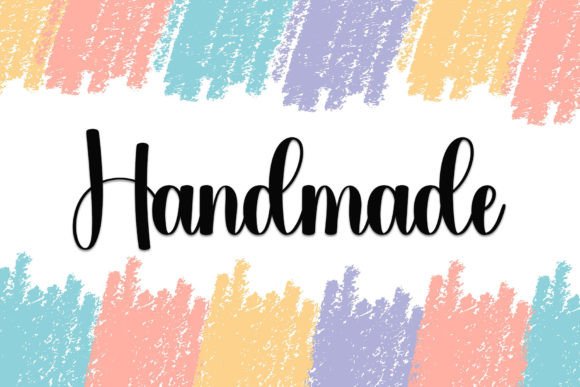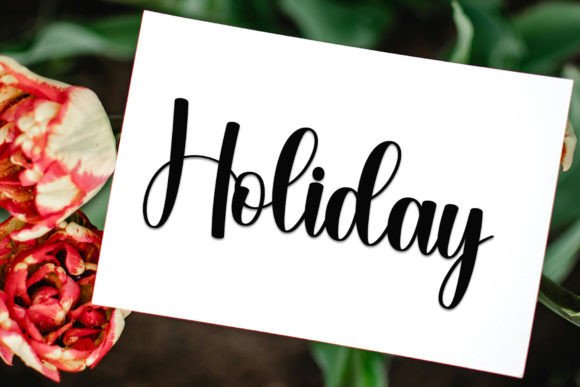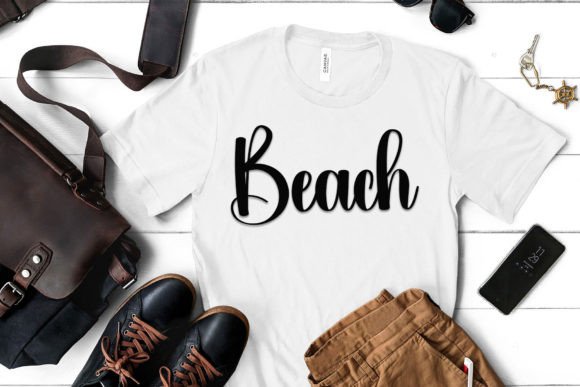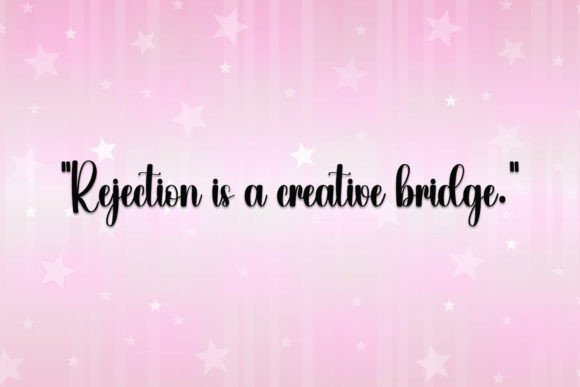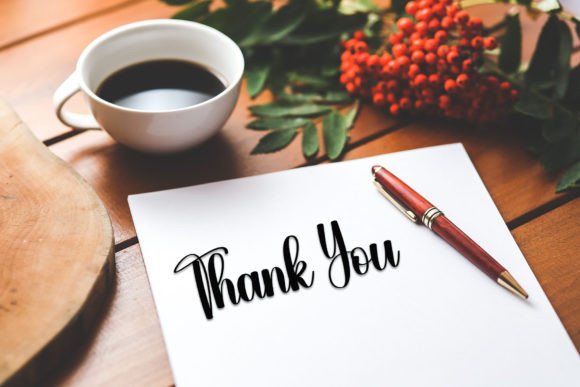
Bitch Font: The Ultimate Handwritten Font for Creative Projects
Are you a designer, crafter, or digital artist looking for a fun and versatile handwritten font to elevate your creative projects? Look no further than Bitch Font! This delightful font is perfect for a wide range of applications, from crafting and digital designing to presentations and greeting card making.
What is Bitch Font?
Bitch Font is a carefully crafted handwritten font that exudes a playful and charming vibe. Its unique character set and flowing strokes make it an excellent choice for adding a personal touch to your designs. Whether you’re creating digital art, crafting handmade cards, or designing presentations, Bitch Font is sure to bring a smile to your audience’s faces.
Features of Bitch Font
- Handwritten style: Bitch Font boasts a genuine handwritten look that’s perfect for creating personal and relatable designs.
- Versatility: This font is suitable for a wide range of creative projects, from digital art to handmade crafts.
- Easy to read: Despite its playful nature, Bitch Font remains easy to read, making it perfect for body text and headings.
- Unique character set: Bitch Font features a unique character set that adds a touch of personality to your designs.
Uses of Bitch Font
Bitch Font is an incredibly versatile font that can be used in various creative projects, including:
- Crafting: Add a personal touch to your handmade cards, scrapbook pages, and other craft projects with Bitch Font.
- Digital designing: Use Bitch Font to create stunning digital art, social media graphics, and website headers.
- Presentations: Elevate your presentations with Bitch Font’s playful and engaging style.
- Greeting card making: Create beautiful and heartfelt greeting cards with Bitch Font.